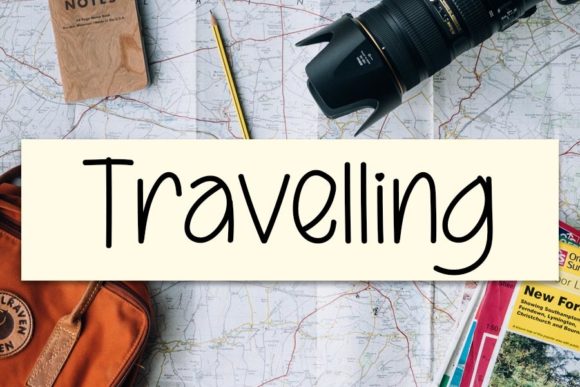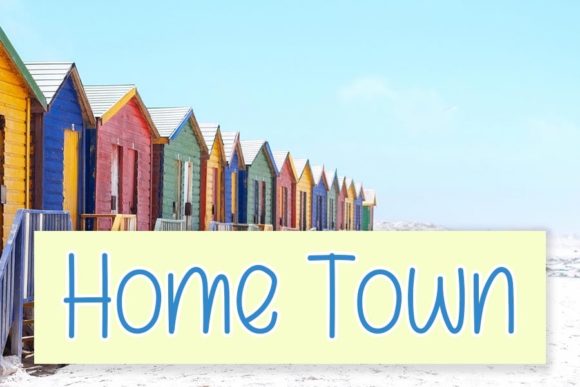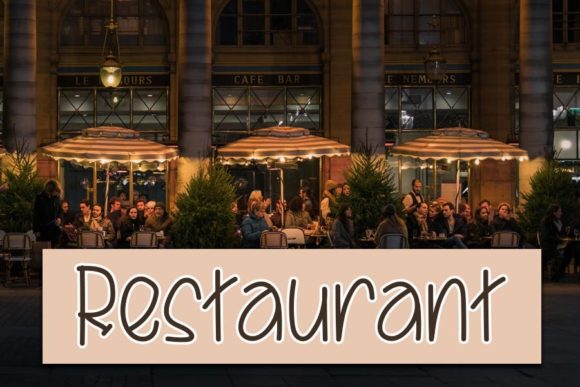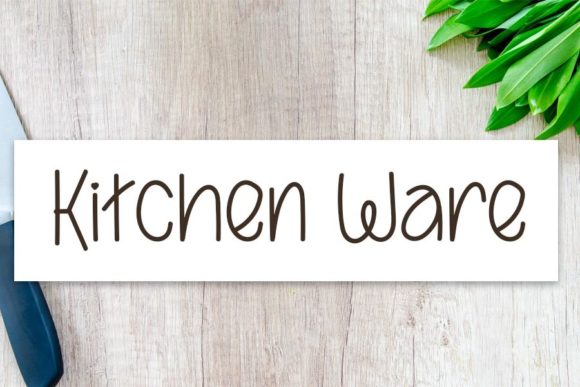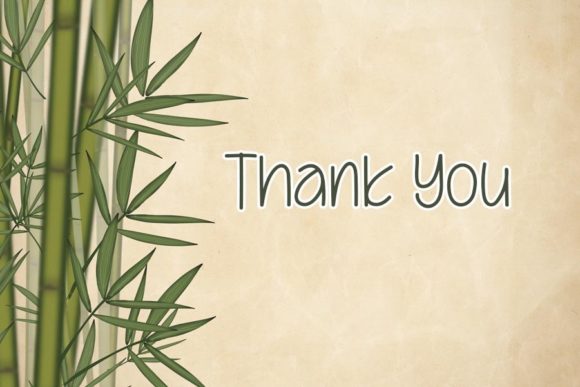
The Perfect Font for Unforgettable Designs
Remember the moment when you stumbled upon the perfect font for your project? The one that made your design pop and left you wondering how you ever managed without it? For many designers, that moment comes when they discover the Best Friends Font. This charming, round-lettered font is a game-changer for creating eye-catching logos, branding, and quotes that leave a lasting impression.
With its unique, handwritten touch, the Best Friends Font adds a personal and authentic feel to any design. Whether you’re working on a personal project or a commercial campaign, this font is sure to elevate your work and make it stand out from the crowd. Its versatility and beauty make it a valuable asset for designers of all levels, and its simplicity ensures that it’s easy to use and integrate into any design.
Key Features of Best Friends Font
- Font Family: Best Friends Font is a sans-serif font family designed for digital use, making it ideal for screens and print media.
- Unique Characteristics: Features a friendly and approachable tone, with subtle rounded edges and open shapes that make it perfect for use in children’s books, magazines, and other publications targeting a younger audience.
Best Friends Font Review
Overall, I was excited to dive into the Best Friends Font, hoping to find a friendly companion for my design projects. While it has its moments, I found the font to be somewhat hit-or-miss.
- Warm and inviting feel – The Best Friends Font does a great job of conveying a sense of friendliness and approachability, making it perfect for social media, blogs, and other online platforms.
- Good for body text – While it may not be the most exciting choice for headlines, the font works well for body text, making it easy to read and comprehend.
- Lack of versatility – The Best Friends Font feels a bit one-dimensional, lacking the nuance and sophistication of other fonts in its class.
- Not ideal for formal projects – Due to its casual, friendly vibe, I wouldn’t recommend using the Best Friends Font for formal projects, such as business reports or academic papers.
In conclusion, while the Best Friends Font has its strengths, its limitations hold it back from being a truly standout choice. It’s a solid, middle-of-the-road option that gets the job done, but it won’t blow you away.
The Best Friends Font is ideal for creating playful, handwritten text in various design projects. Some common use cases include:
– Social media posts and captions
– Party invitations and decorations
– Handwritten-style quotes and phrases
– Children’s book illustrations and text